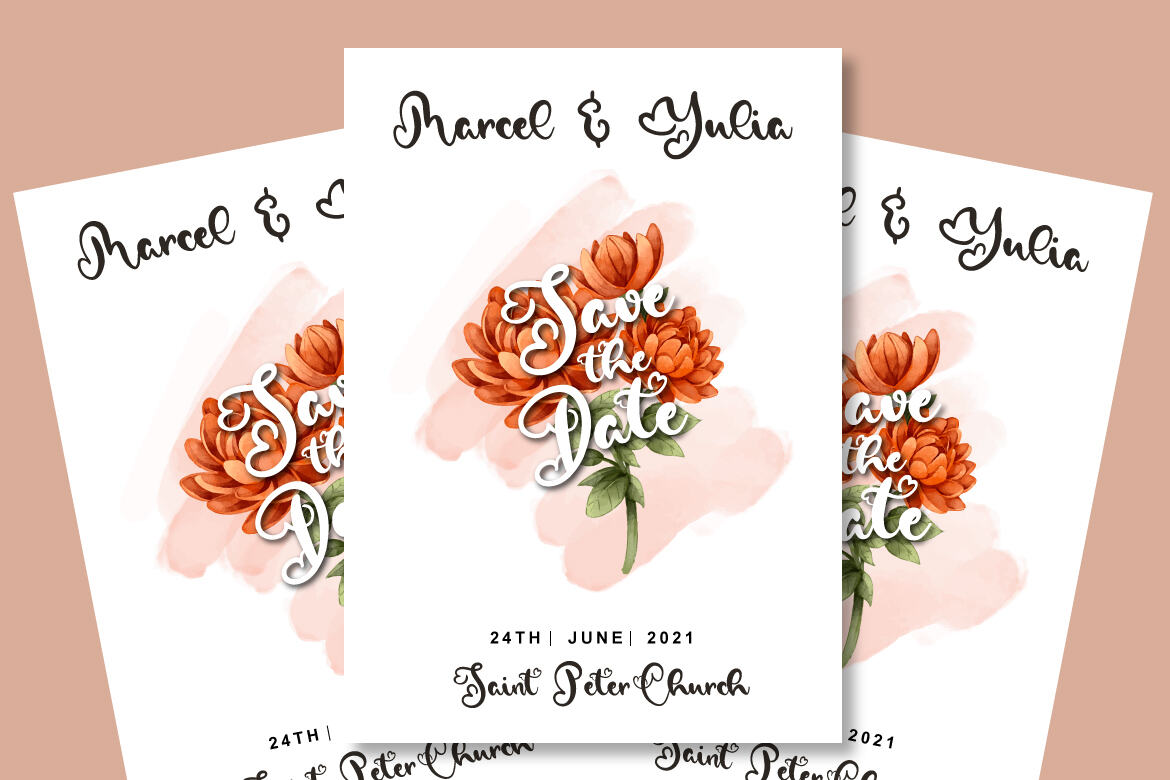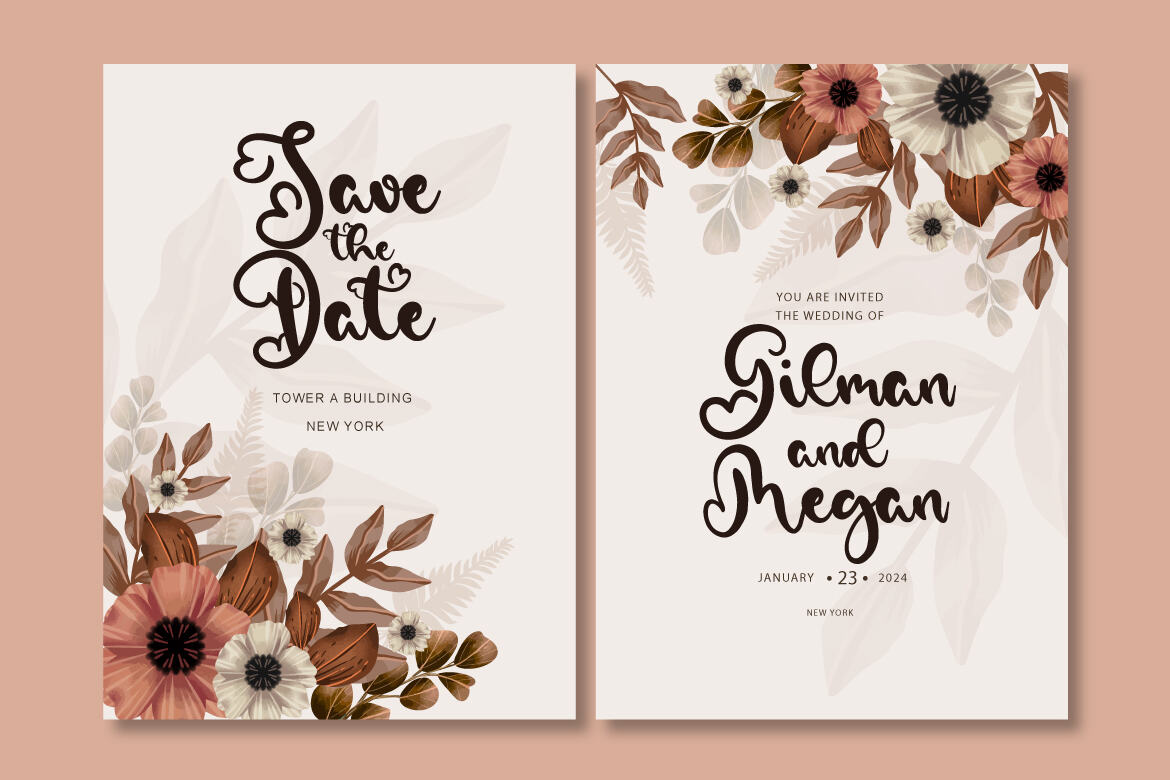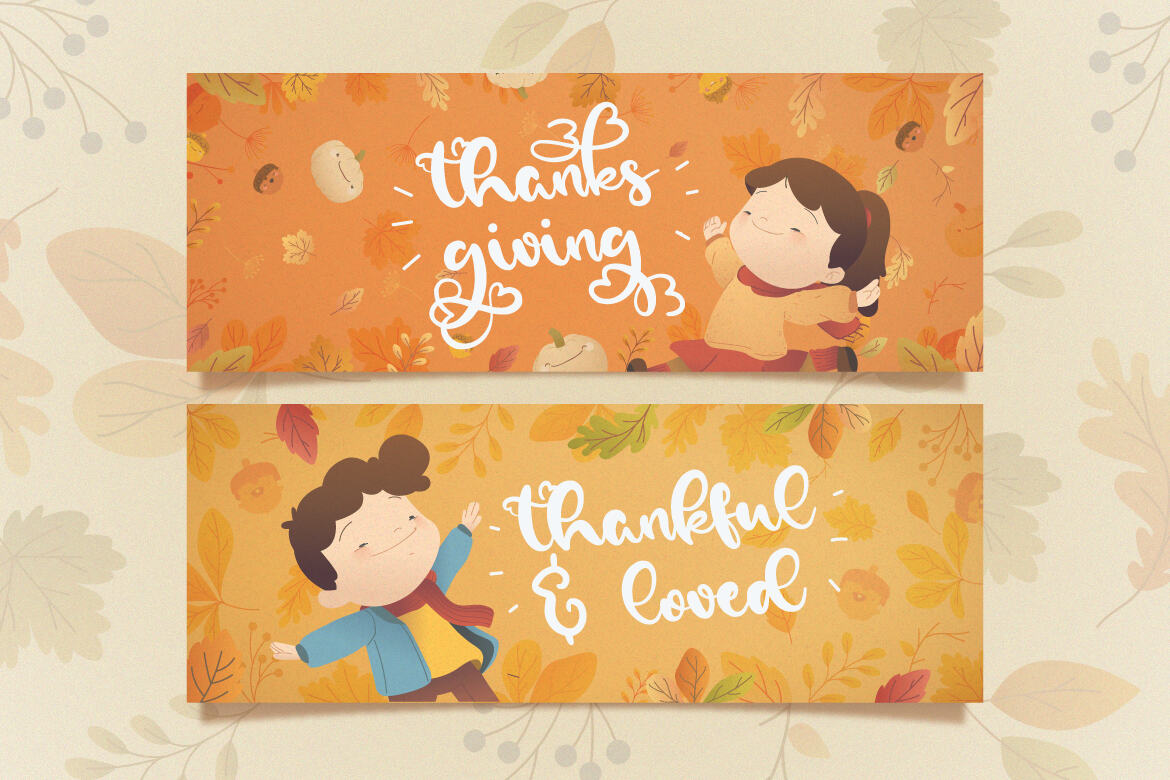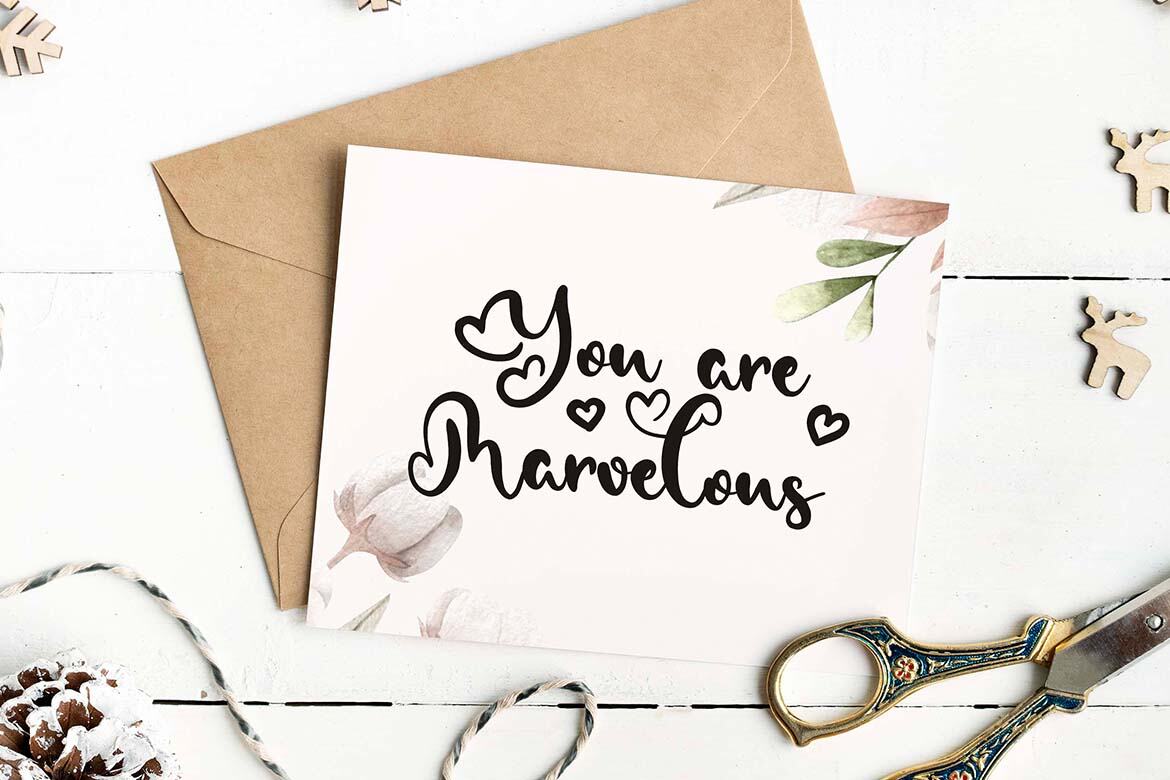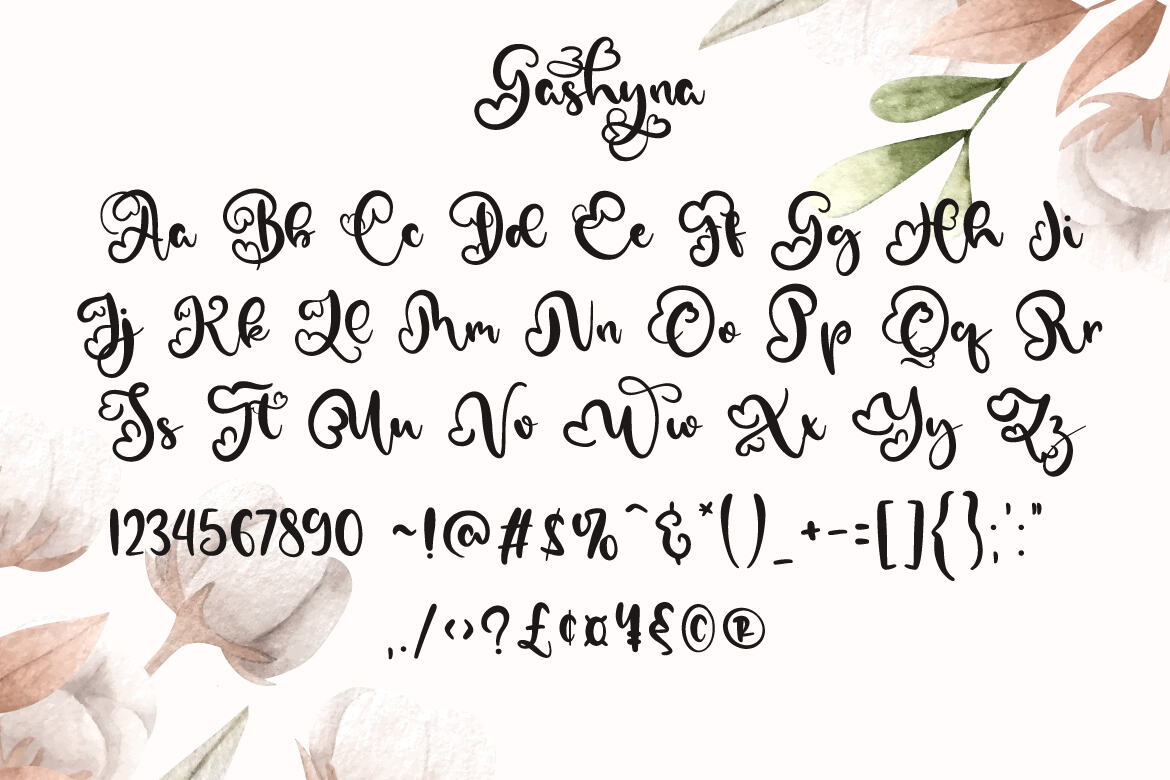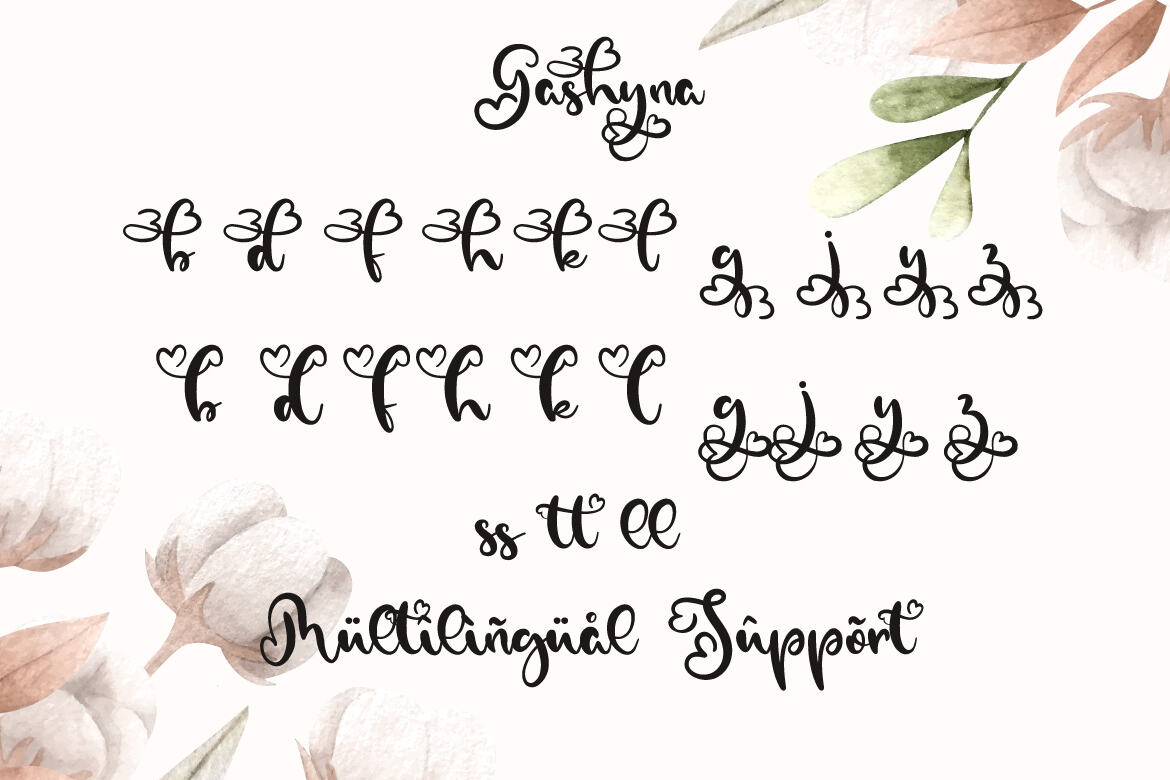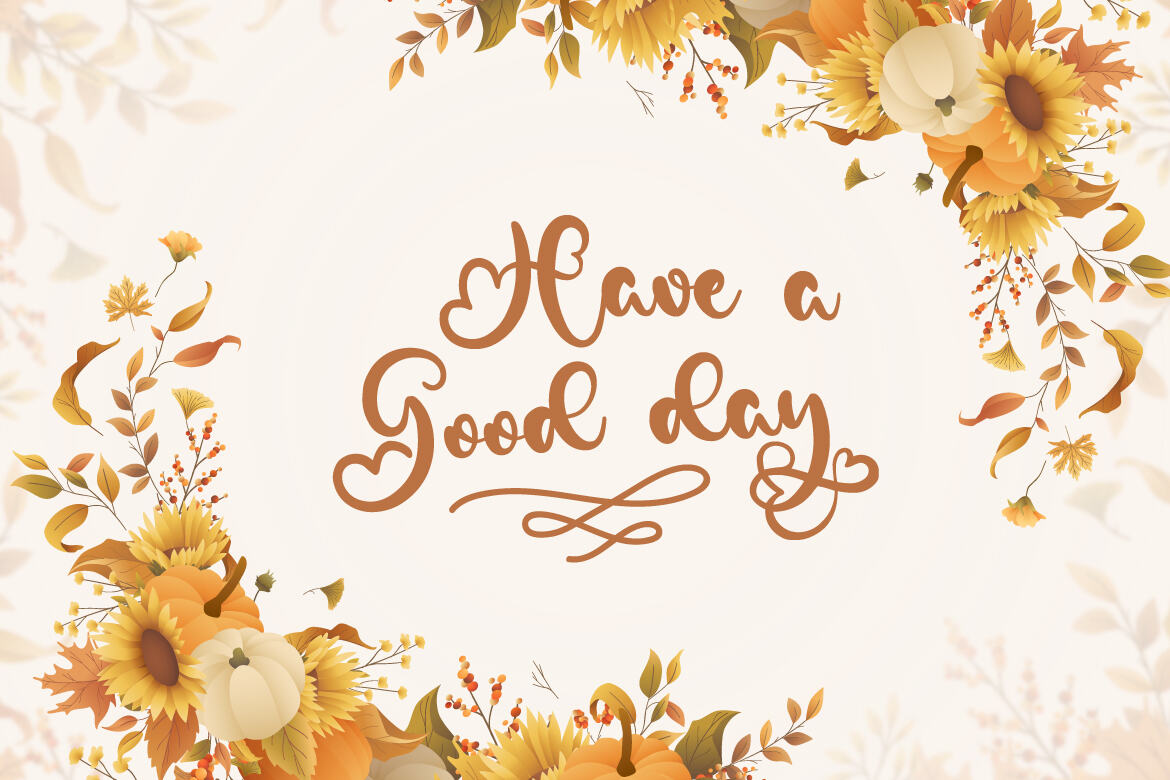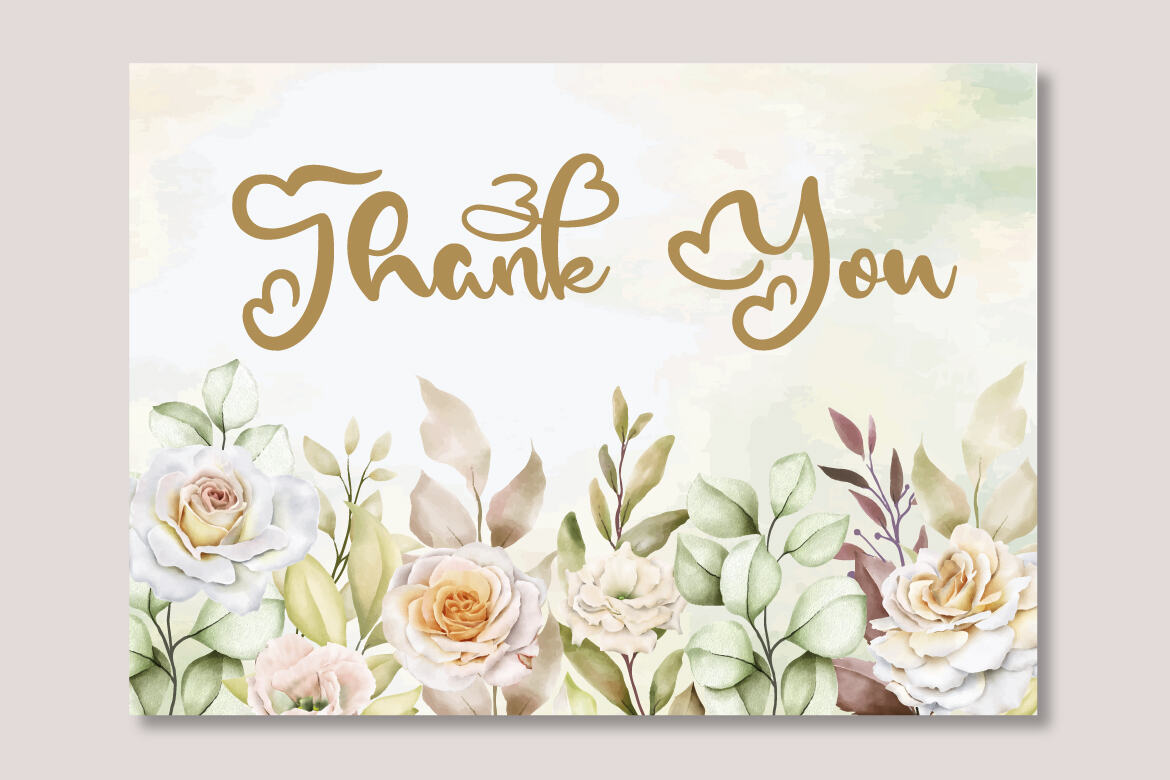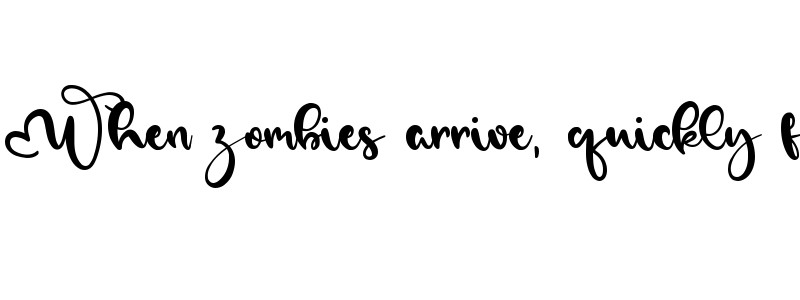
Gashyna Script - Free Font
Gashyna is a stylish and incredibly elegant handwritten font. It looks stunning on wedding invitations, thank you cards, quotes, greeting cards, logos, business cards and every other design which needs a handwritten touch.
This font is PUA encoded which means you can access all of the glyphs and swashes with ease ! .Add it to your most creative ideas and notice how it makes them come alive!
• accents (multilingual characters)
• alternate
• ligature